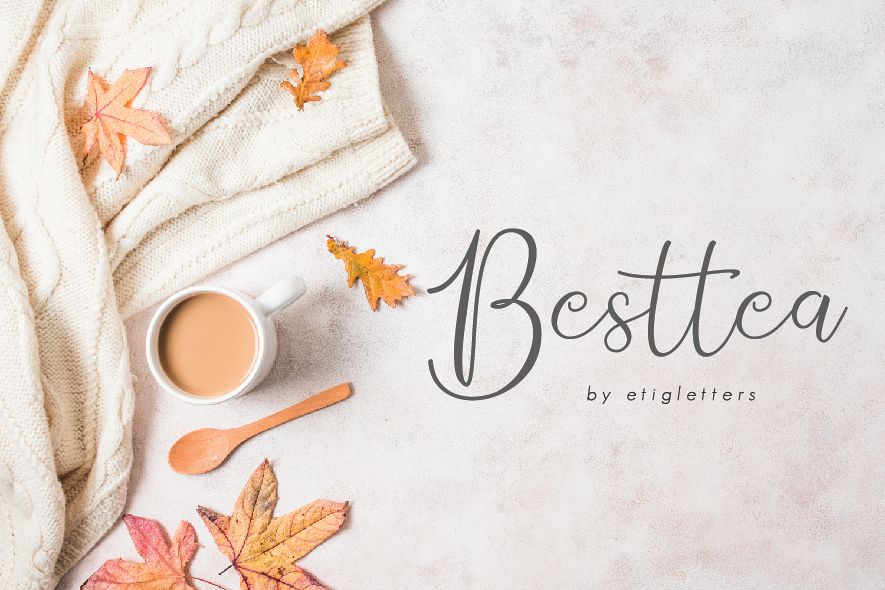
Besttea
Besttea is a handwriting font.
It can be used for wedding invitations, business card, poster design, t-shirt designs, magazine design, greetings cards, and much more